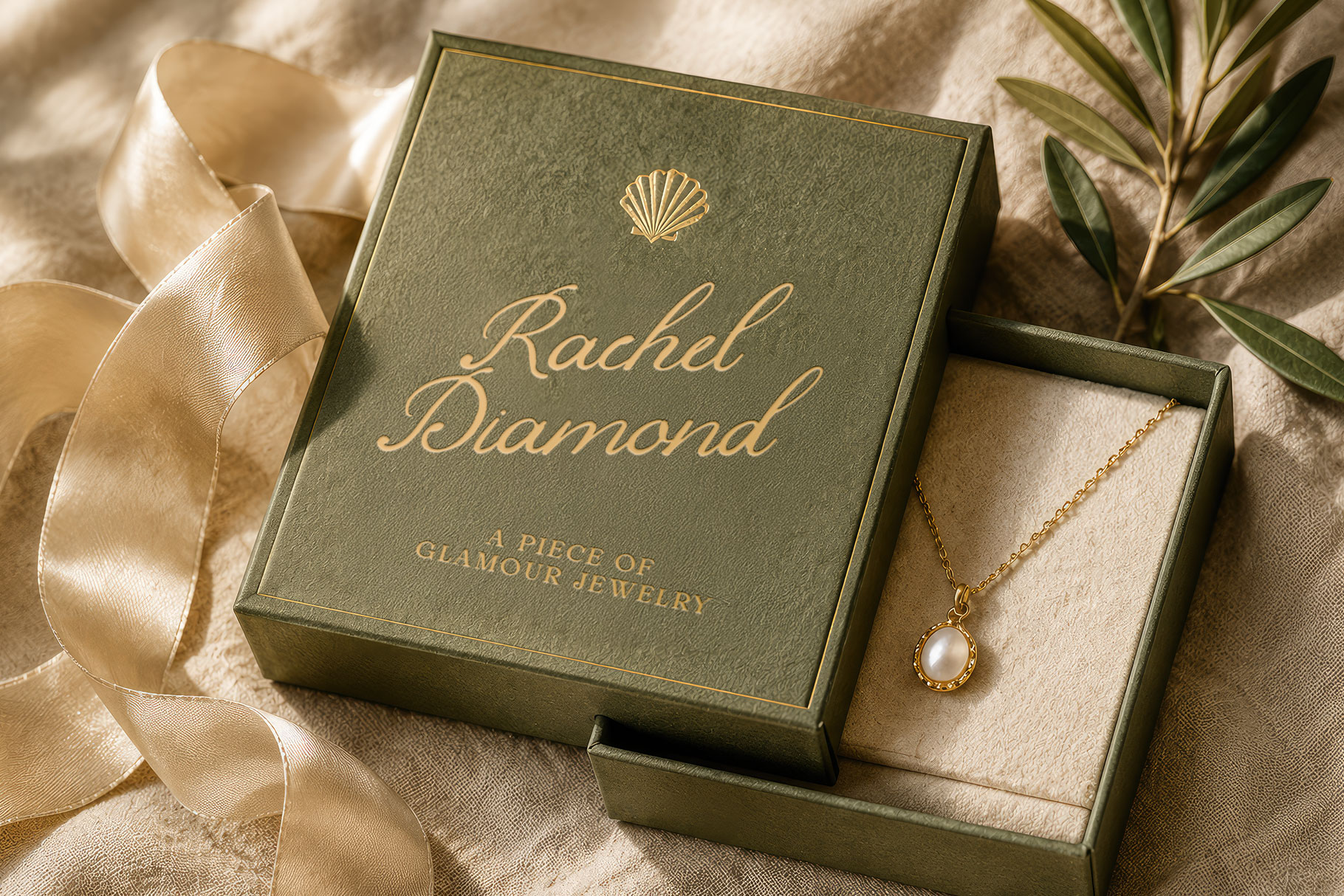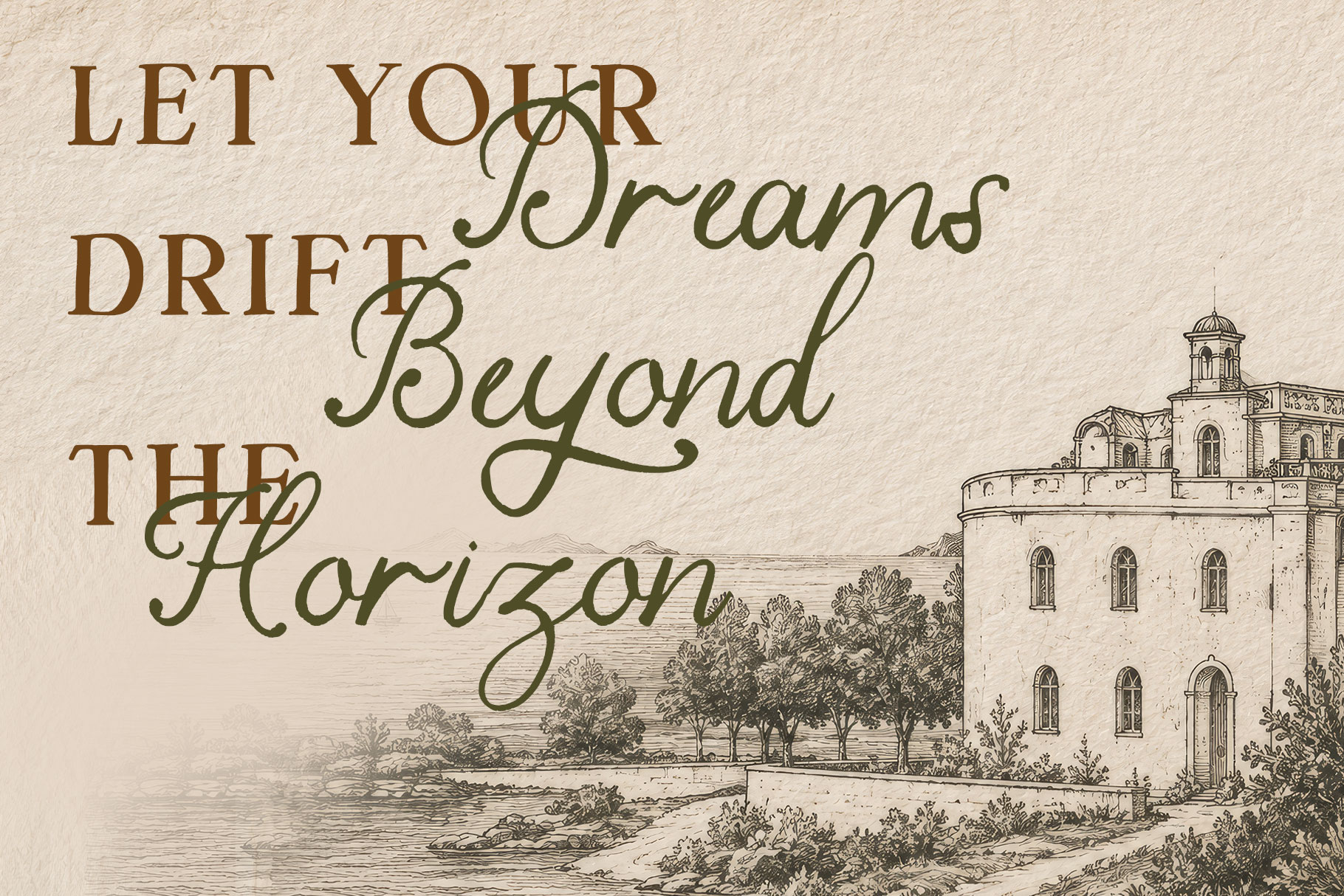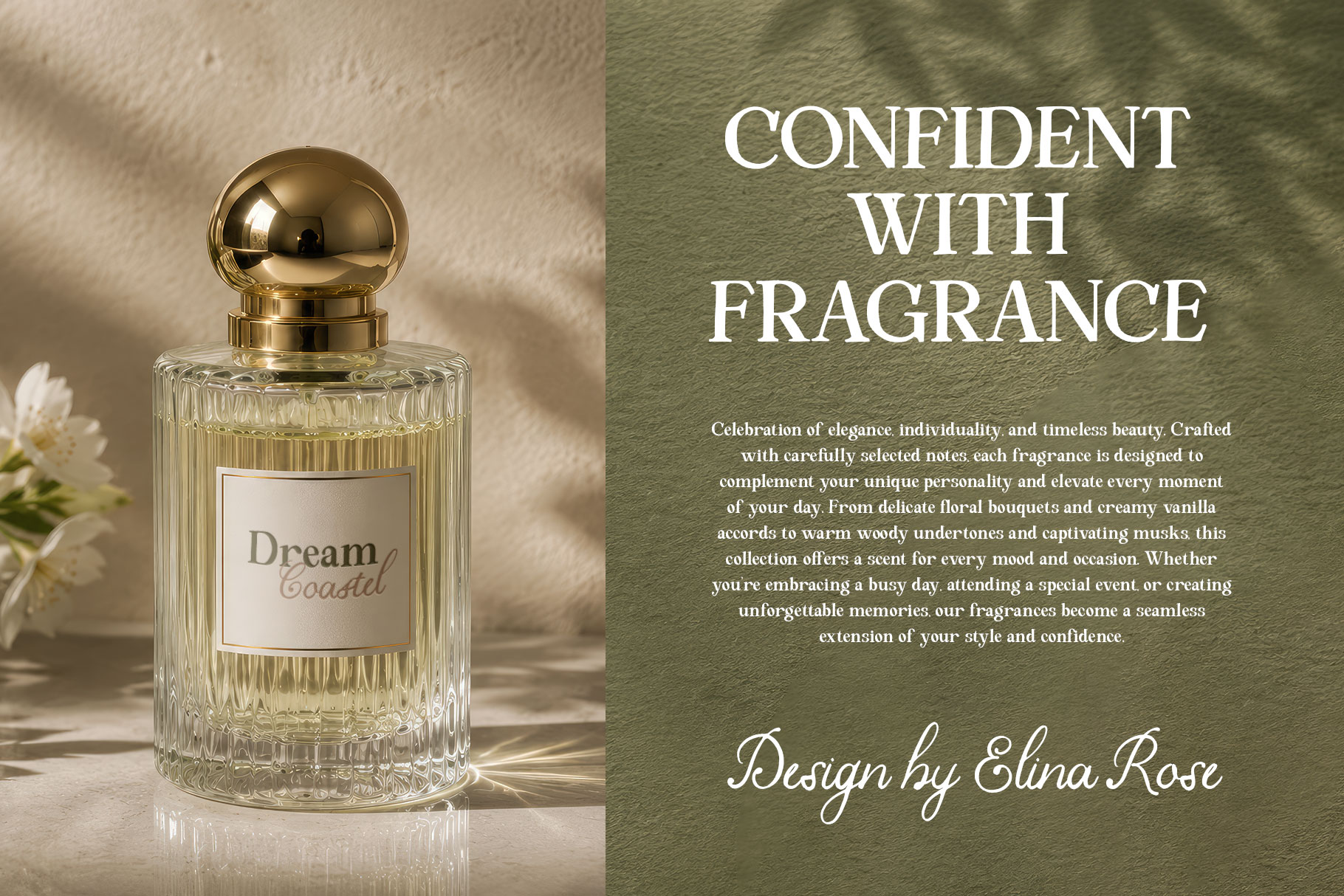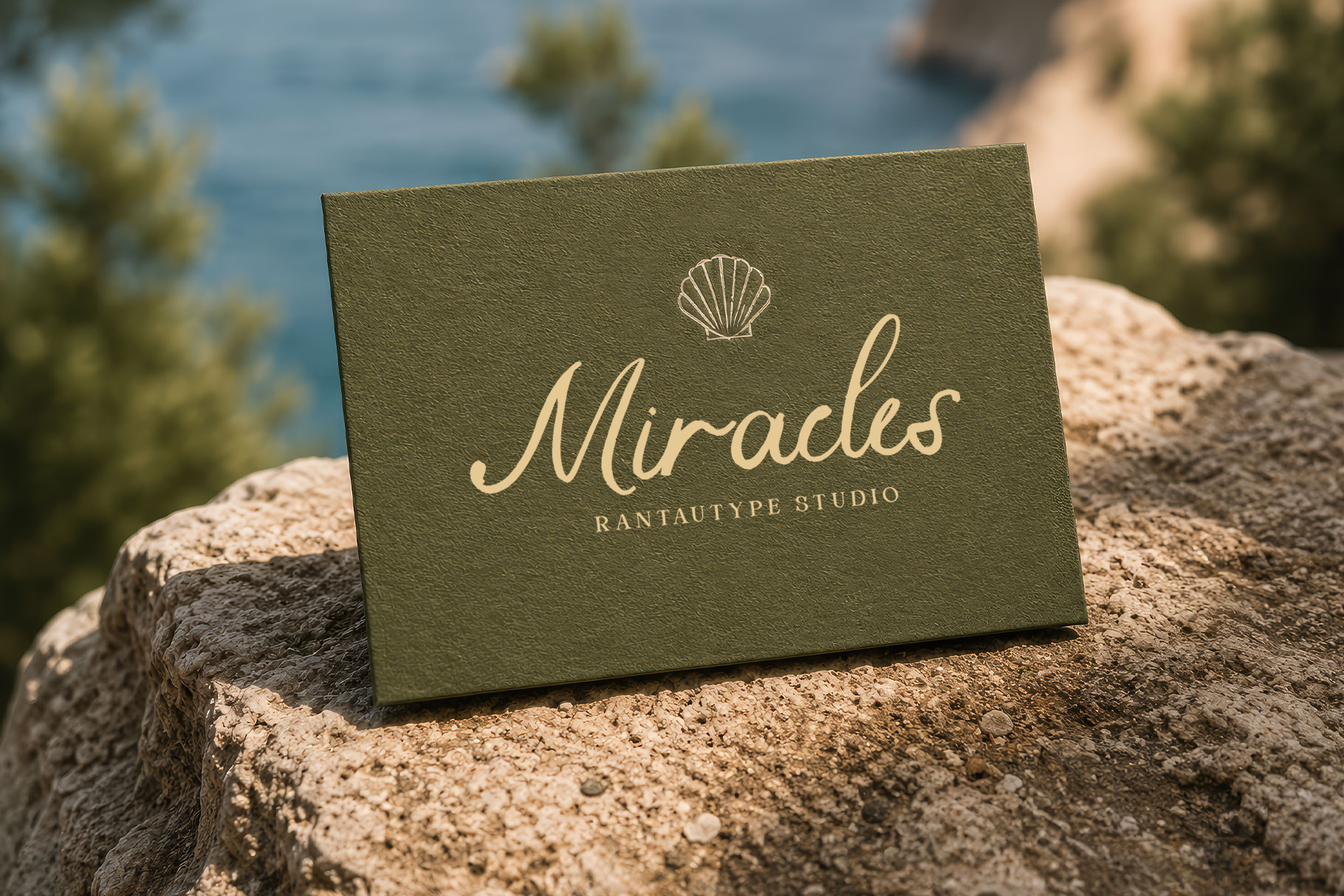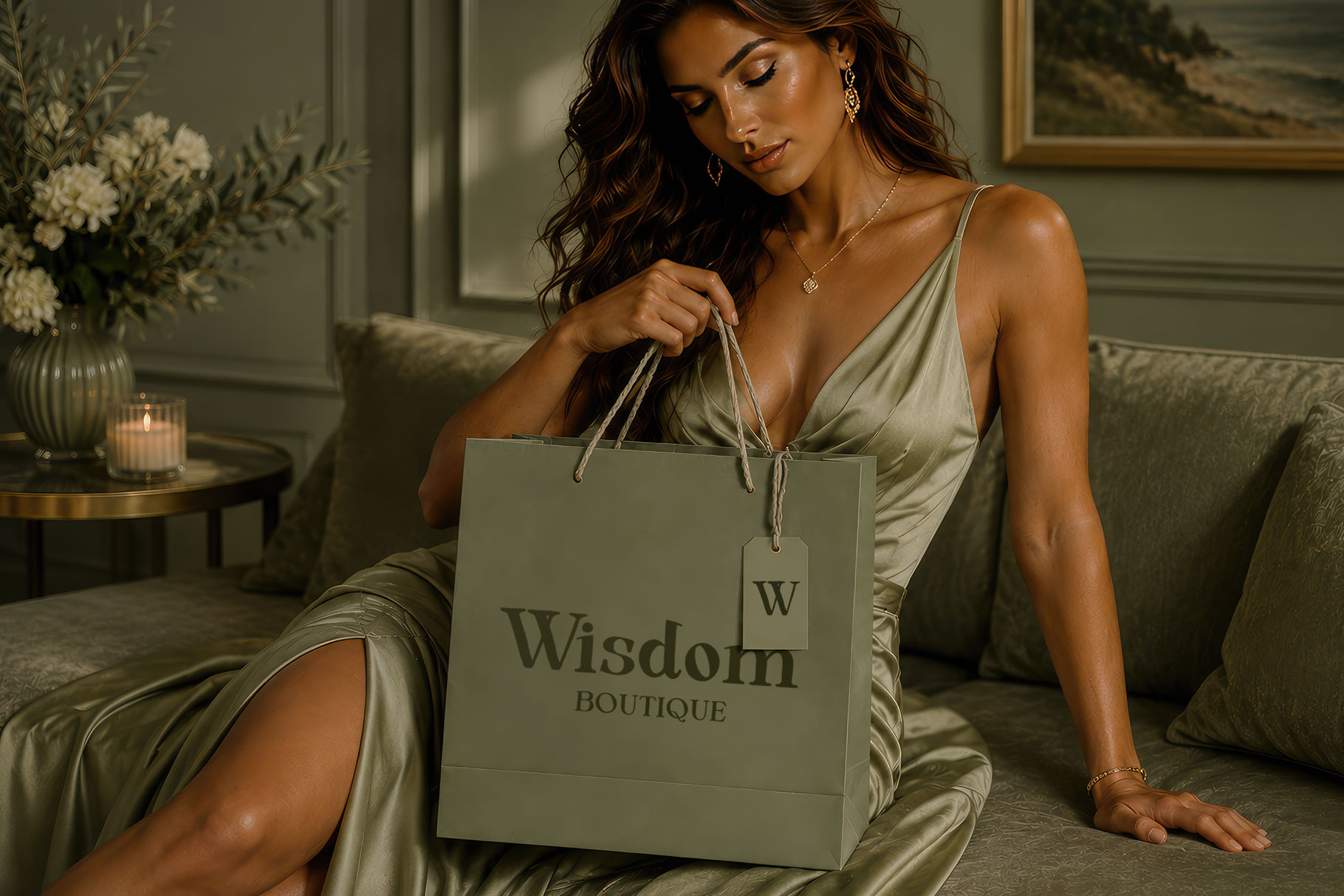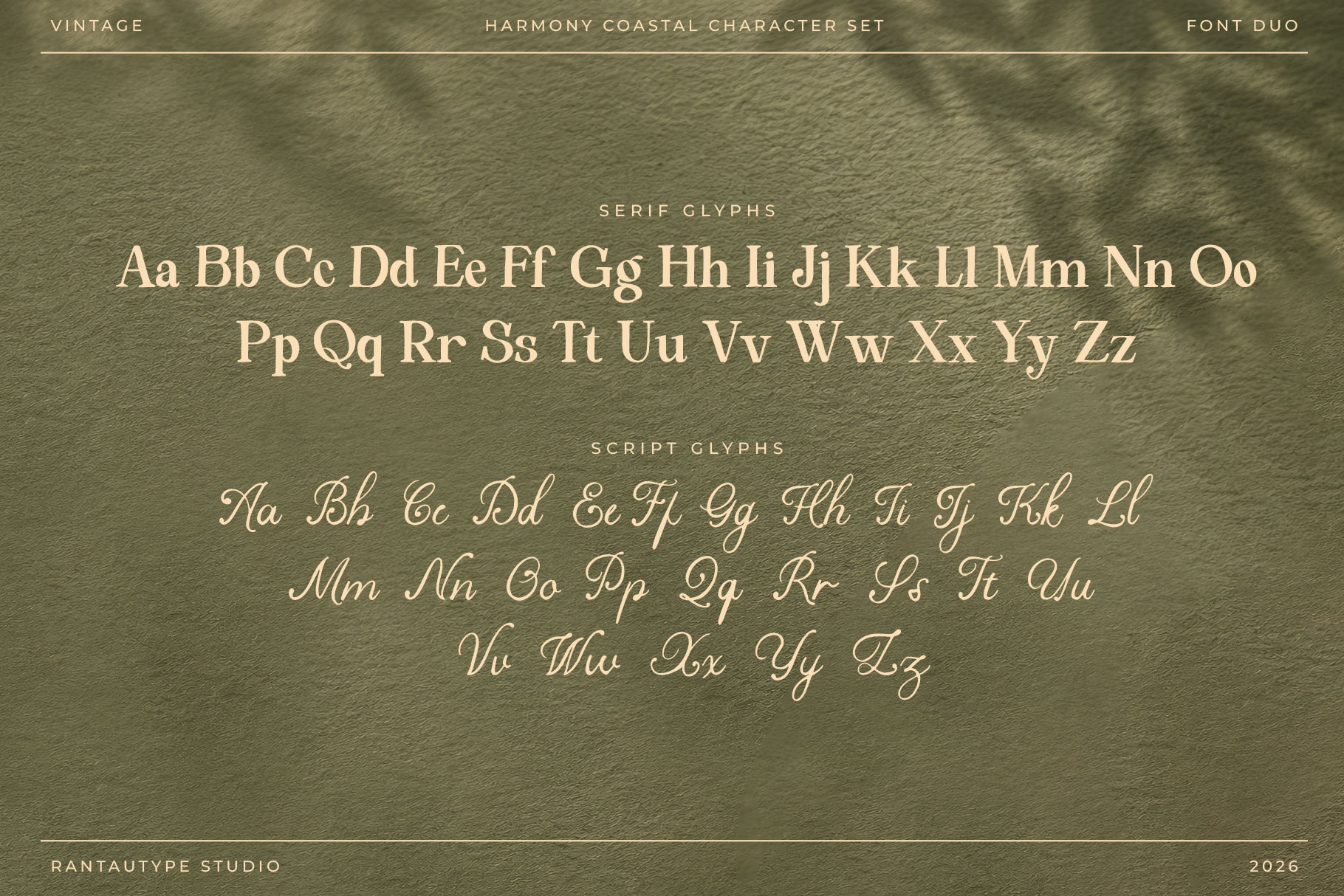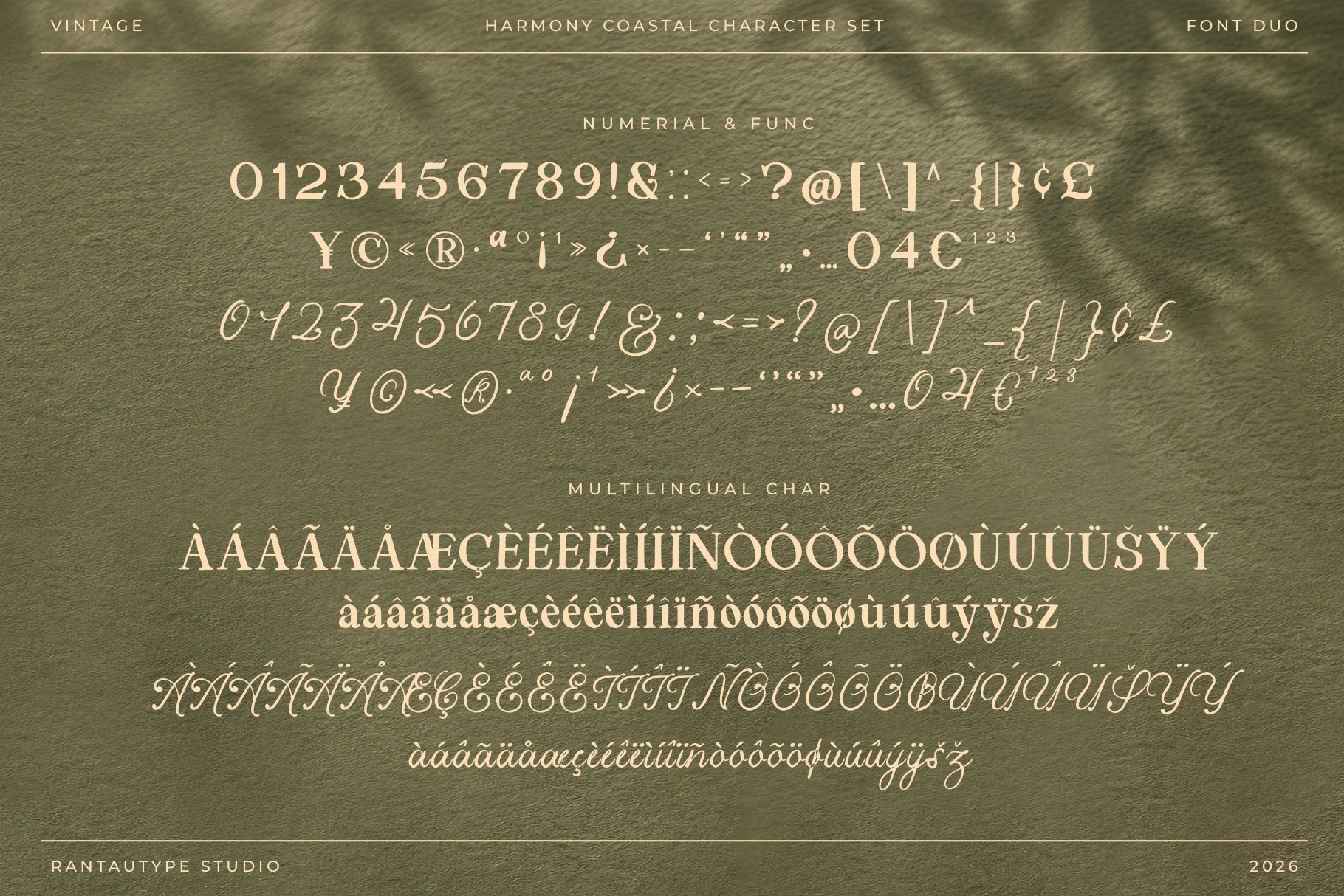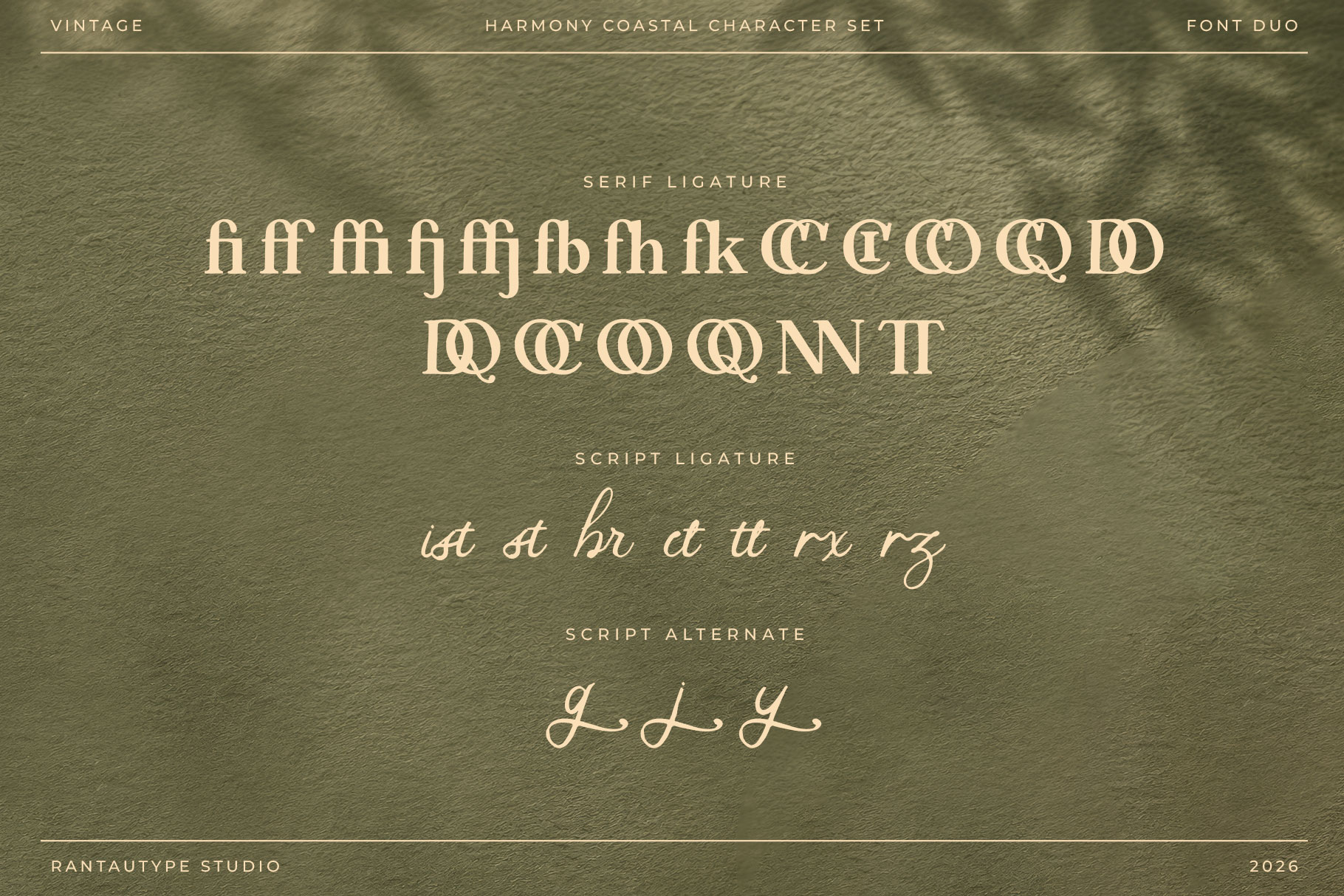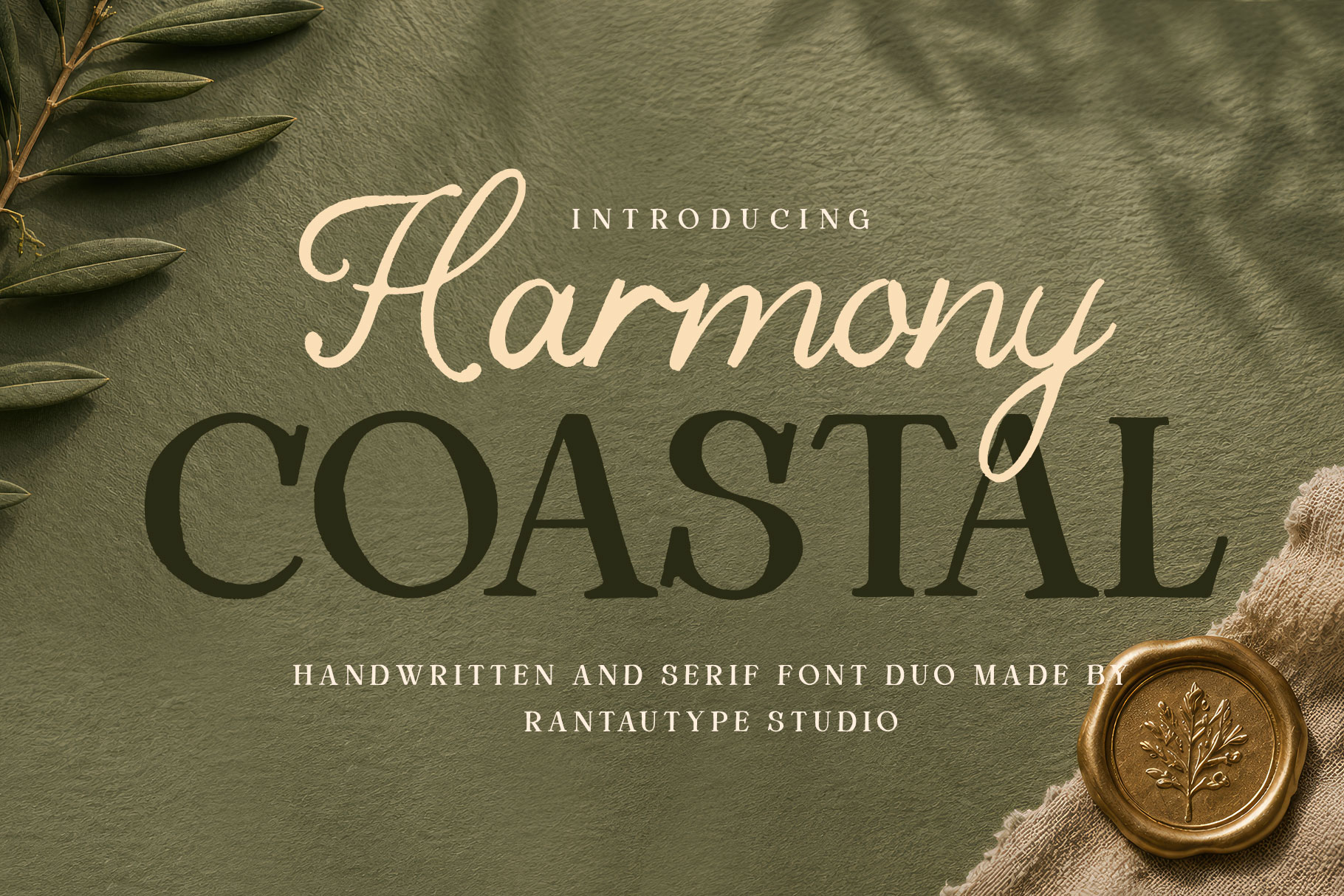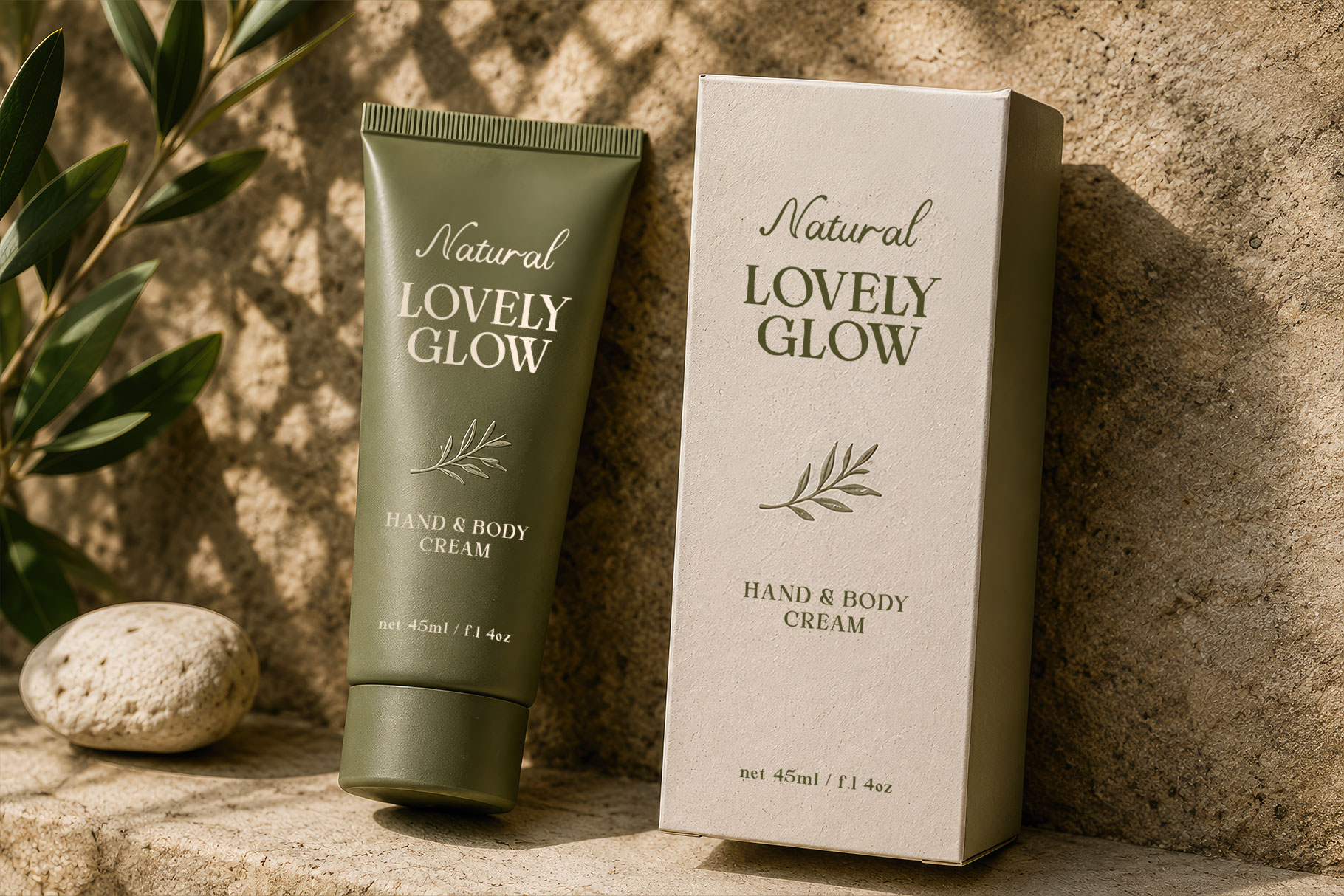
Harmony Coastal is a beautifully crafted font duo that pairs a graceful handwritten script with a refined classic serif, creating a harmonious balance between softness and sophistication. Inspired by breezy coastal afternoons, timeless elegance, and relaxed luxury, this combination delivers a versatile aesthetic perfect for modern branding and editorial design.
Harmony Coastal a perfectly choice for any creative endeavor, creating, modern, lifestyle design such as logotype, title, cover, branding, invitations, wedding designs, display and magazine, social media posts, advertisements, printed quotes, product packaging, corporate brand, product designs, labels, photography, watermarks, special events and any other project with vintage touch.
Harmony Coastal Font Duo